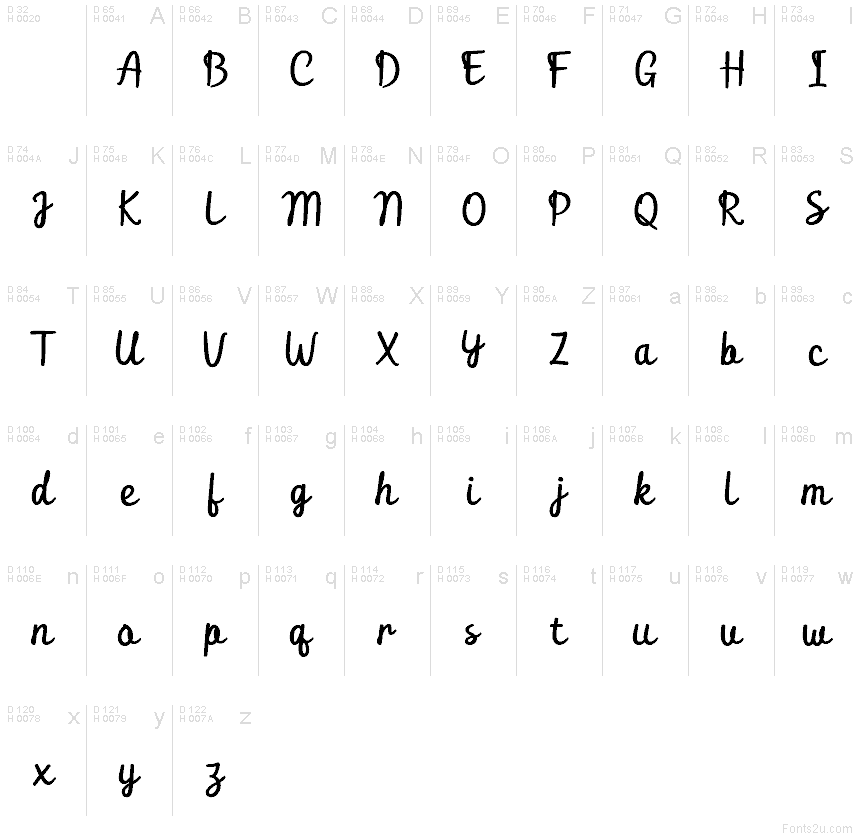
CS Astrid Regular Demo
CS Astrid font by Craft Supply Co. is a free semi-bold monoline handwritten script font. It solves a common script dilemma: many look cute but collapse in small sizes. CS Astrid keeps the charm without the chaos—smooth, inky curves, rounded terminals, and a gentle slant create a friendly rhythm, while open counters and steady spacing keep it clear on labels, tags, and screens.
This free font shines on lifestyle branding, product packaging, photo overlays, quote graphics, café menus, and greeting cards. The bouncy baseline adds warmth without sacrificing readability, so headlines feel personal and polished. Pair it with a clean geometric sans for body copy, and give CS Astrid a touch of negative tracking at display sizes for a crisp, connected look.